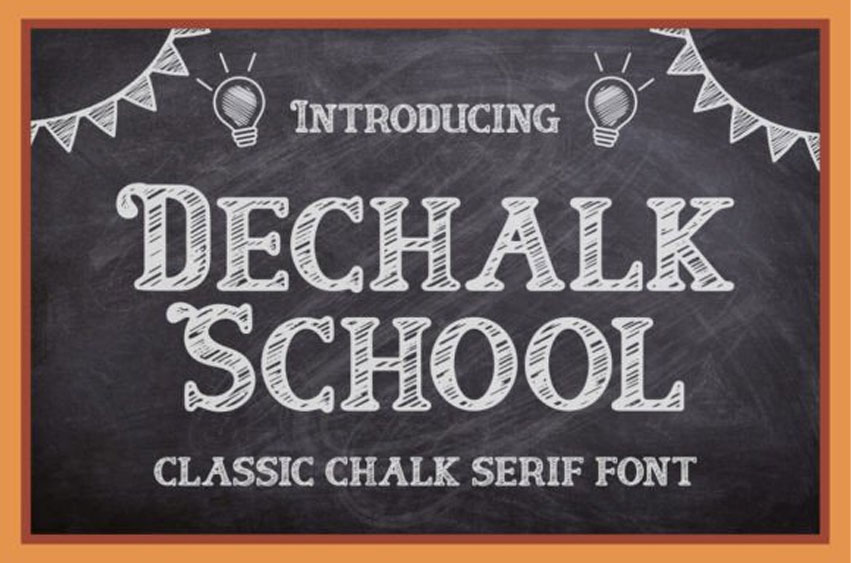
Dechalk School Font
Dechalk School Font is an incredibly unique and cool serif font.
Masterfully designed to become a true favorite, this font has the potential to bring each of your creative ideas to the highest level!